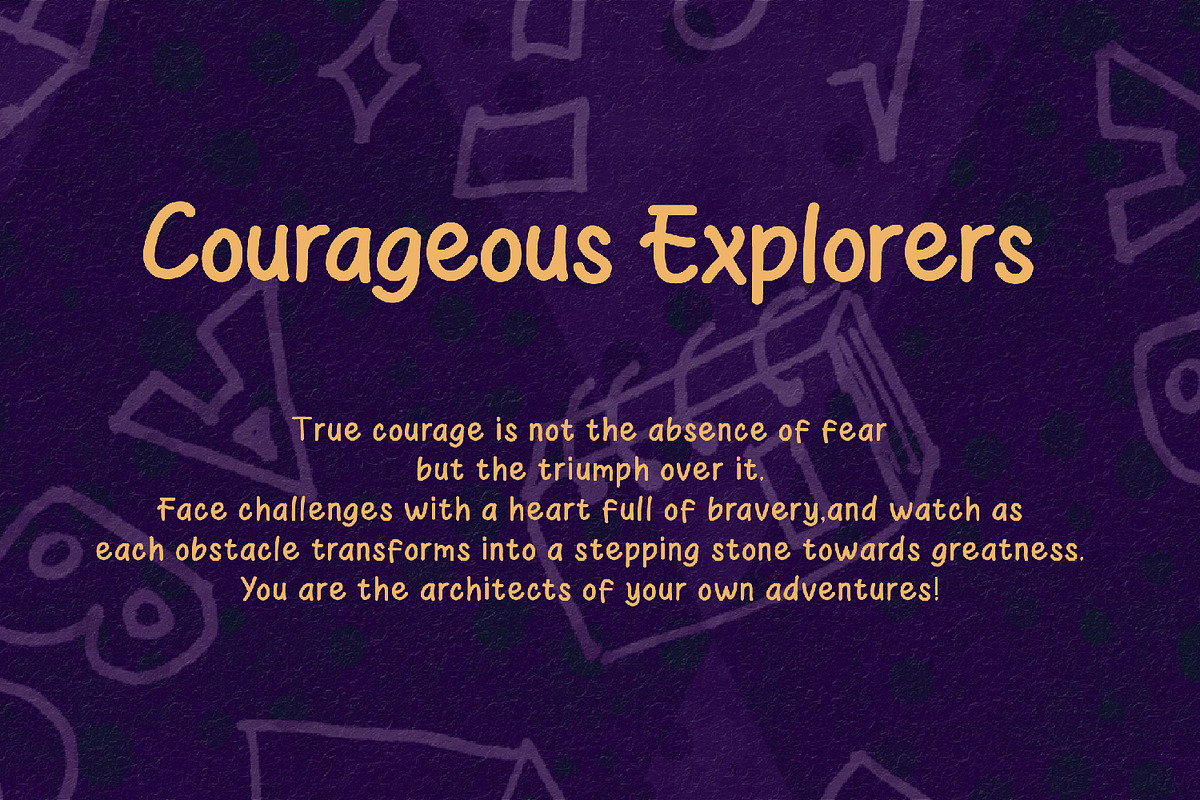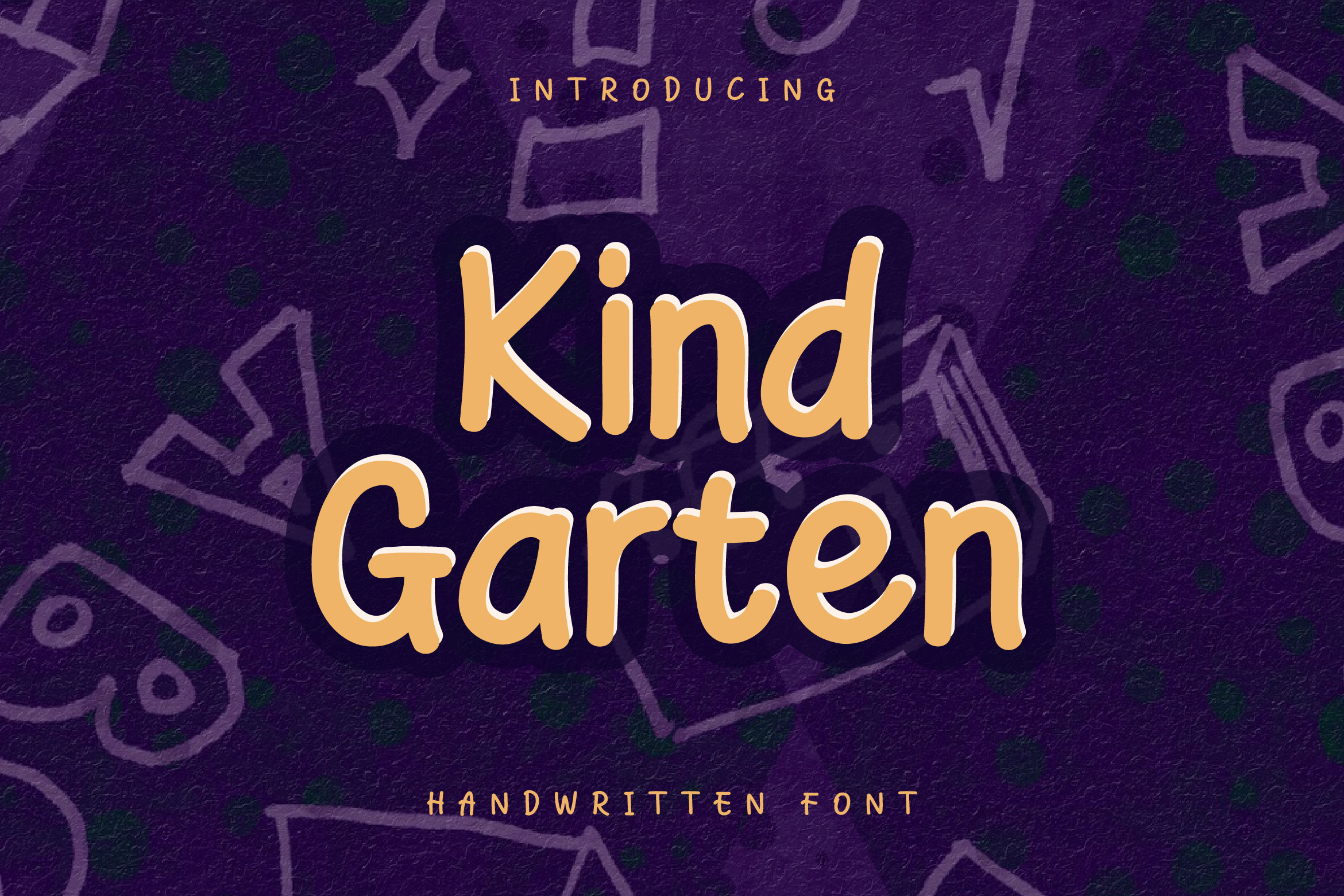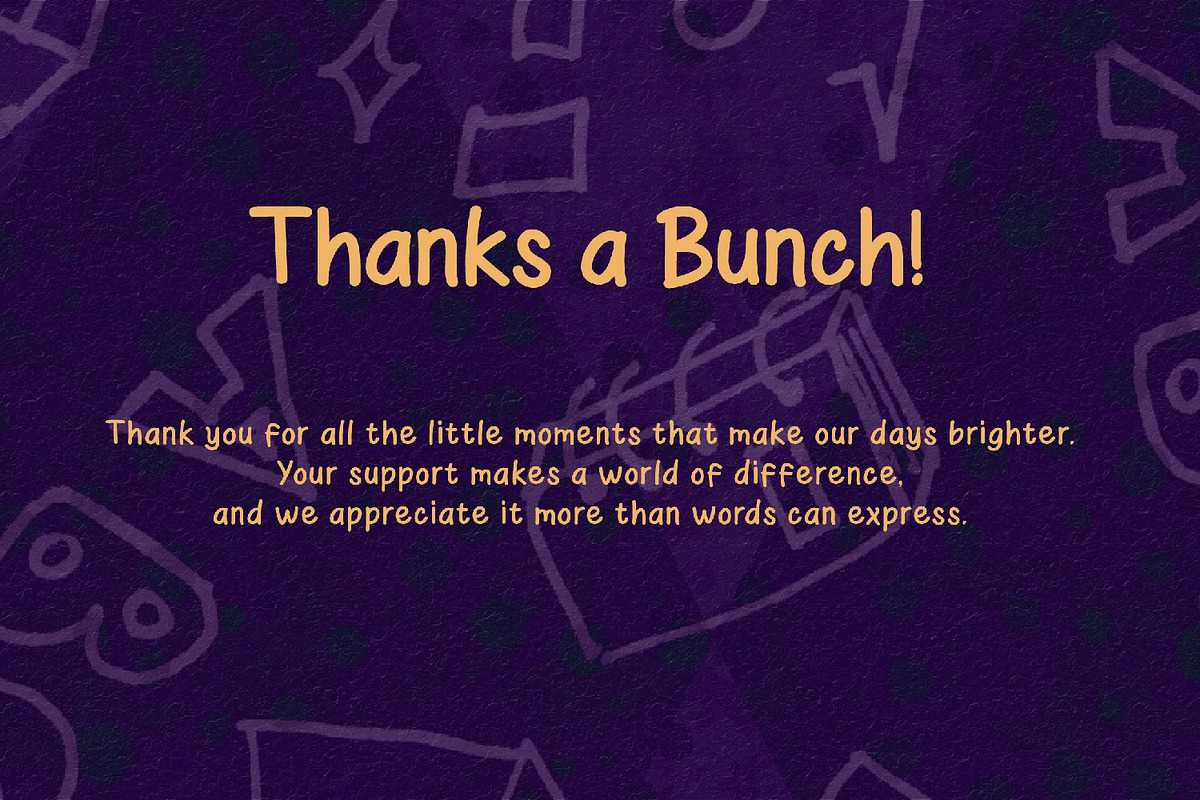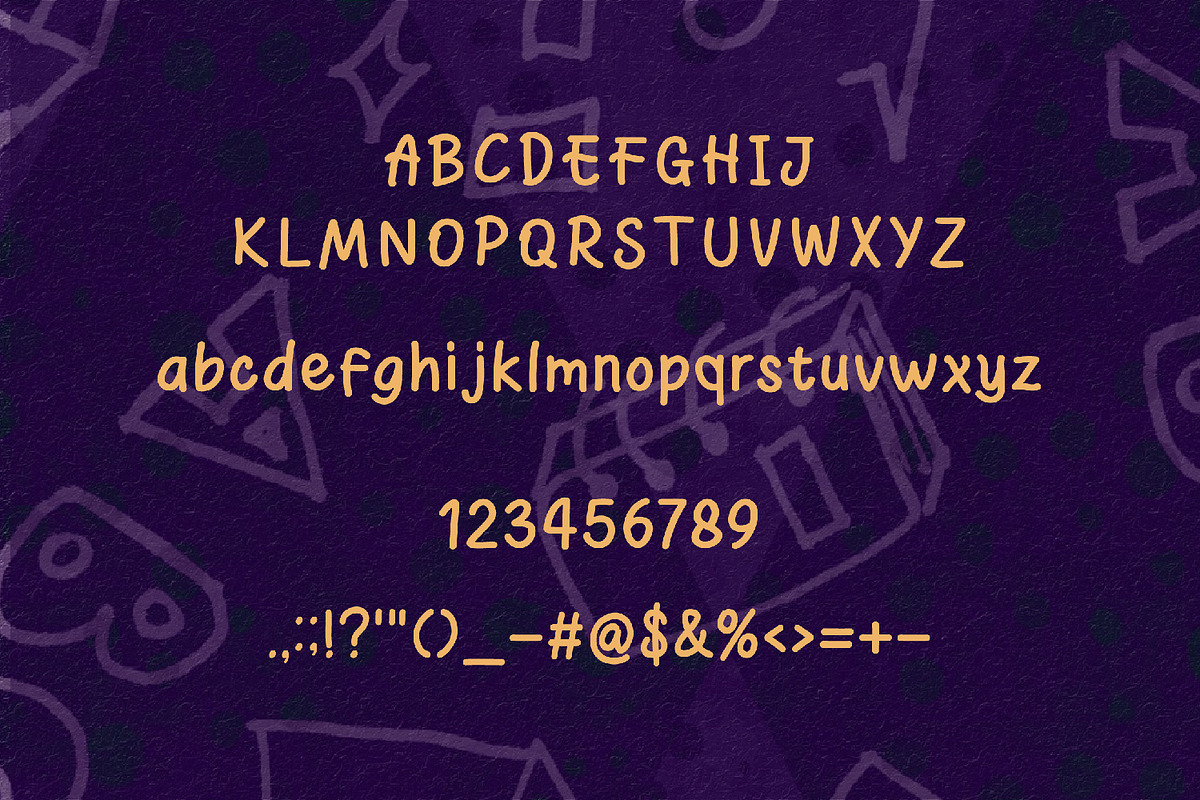
Kind Garten - Handwritten Font
Meet Kind Garten,
The perfect handwritten font designed for all things kid-friendly. With its whimsical strokes and playful curves, this font exudes the charm of childhood, making it an ideal choice for children's books, educational materials, and playful invitations. Embrace the innocence and creativity of youth with 'Kind Garten,' where every letter is crafted to add a touch of magic to your designs, creating a delightful experience for the young and young at heart.